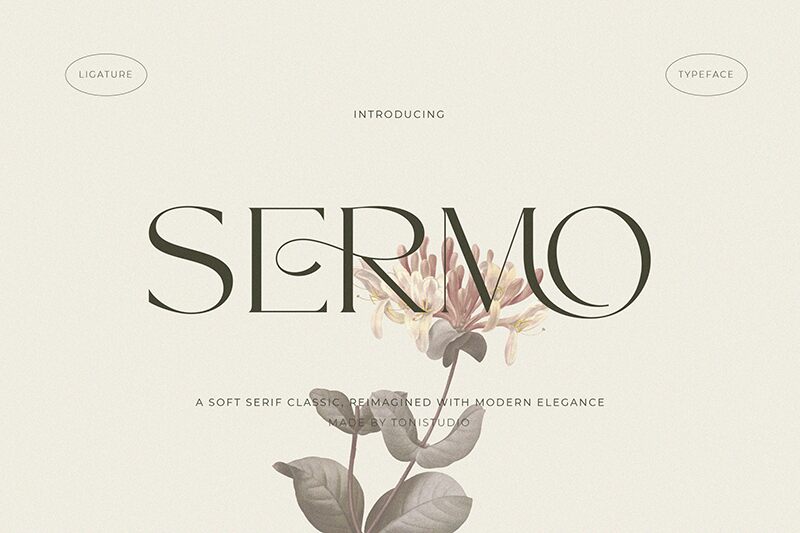
SERMO Italic
Sermo Italic font by ToniStudio is a free elegant serif typeface that embraces classic sophistication. With its high contrast design, it brings an element of finesse and a touch of tradition to any creative project.
Use Sermo Italic for book covers, movie or event posters, logo and package designs as well as clothing items. It is also perfect for brochures, invitation cards, creative magazines, social media posts and video presentations among others.